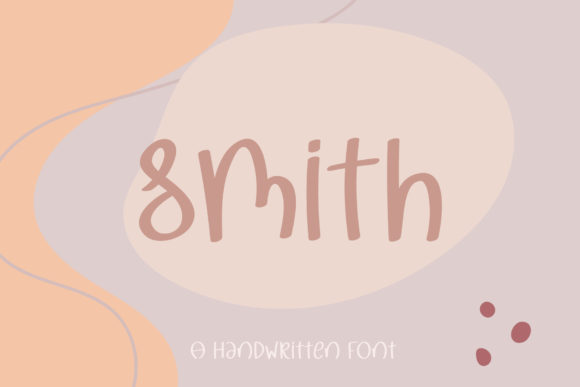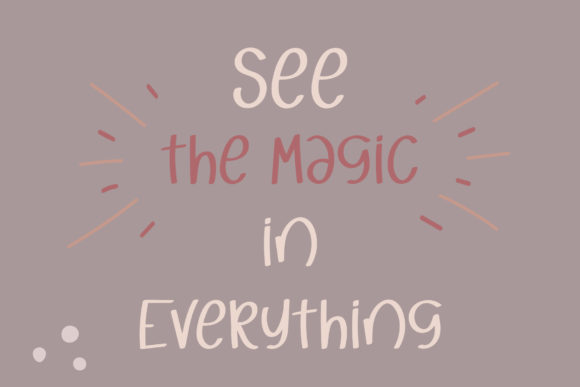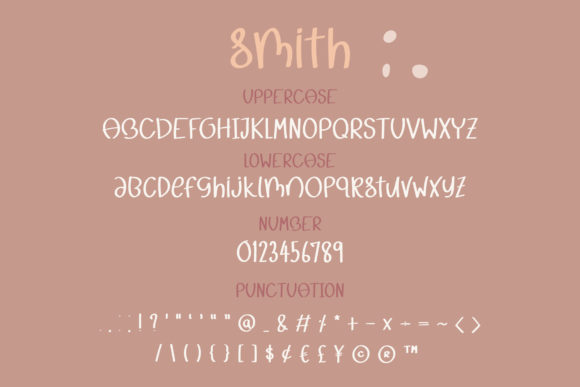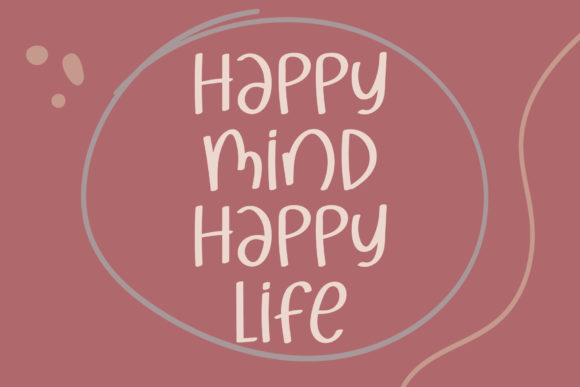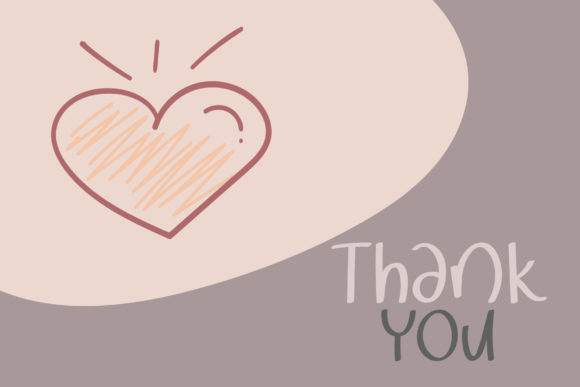
Smith Font
About Smith Font
Smith is a simple and neat handwritten font. Its natural and unique style makes it incredibly fitting to a large pool of designs. The only limit is your imagination!